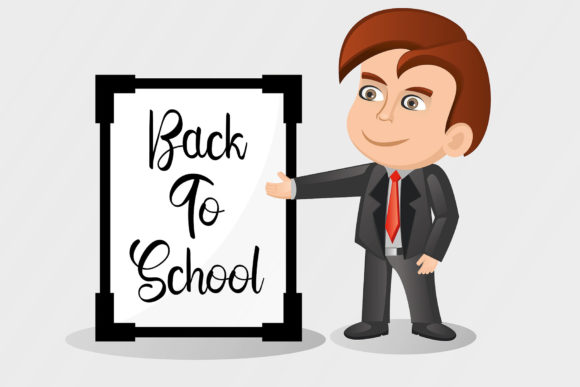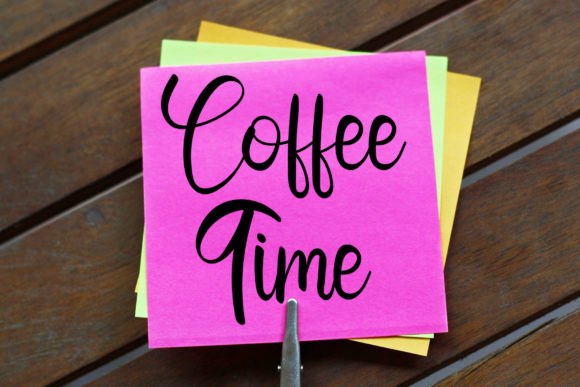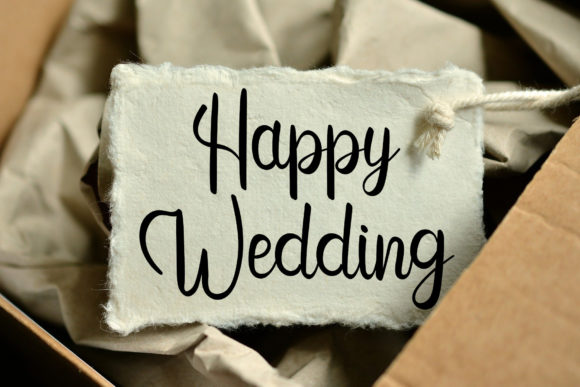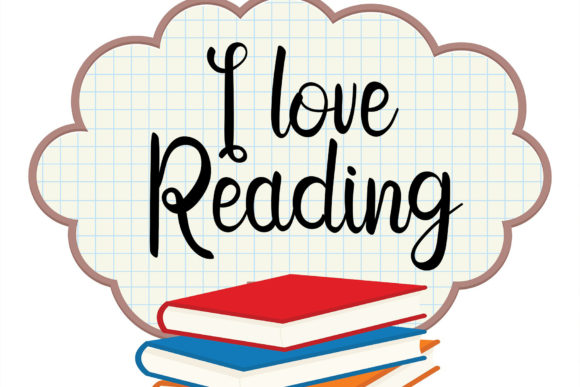
Looking at Stars Font
About Looking at Stars Font
Looking at Stars is a beautiful and refined script font. It has a classy, elegant and modern look that can be used for logos, branding, invitations, stationery, wedding designs, social media posts, and much more!